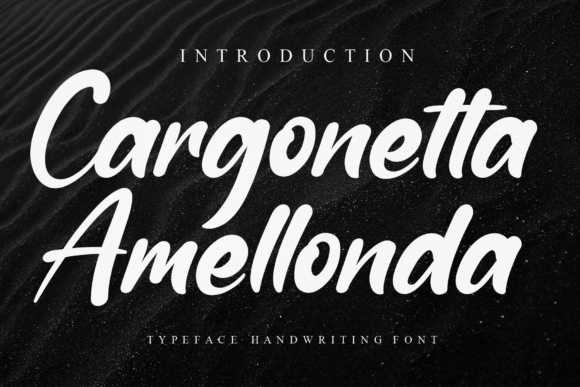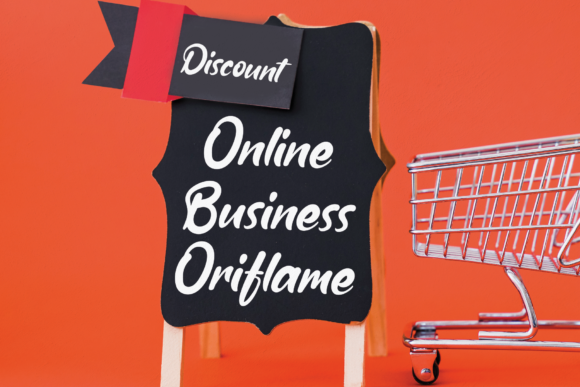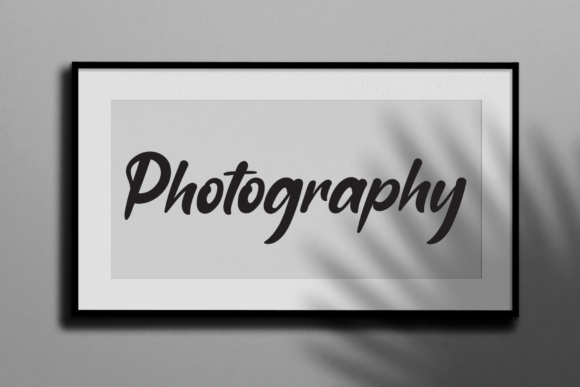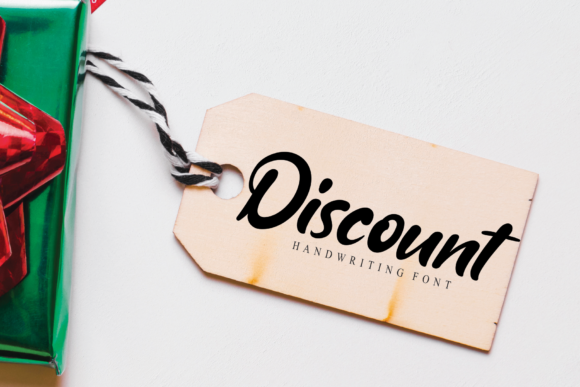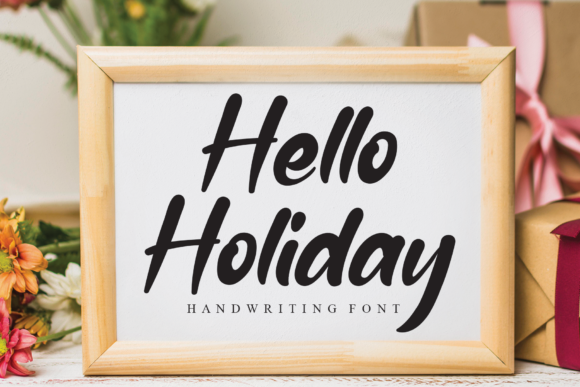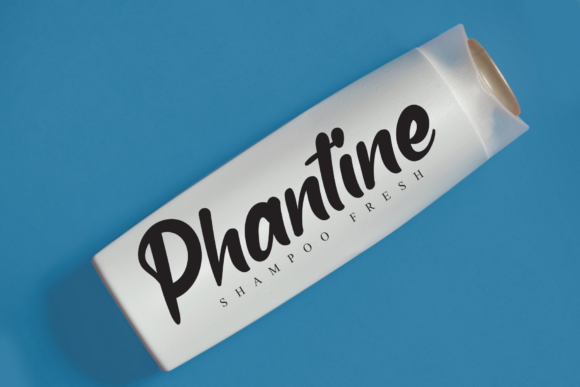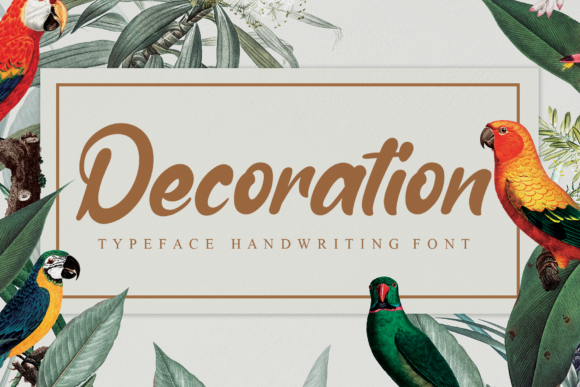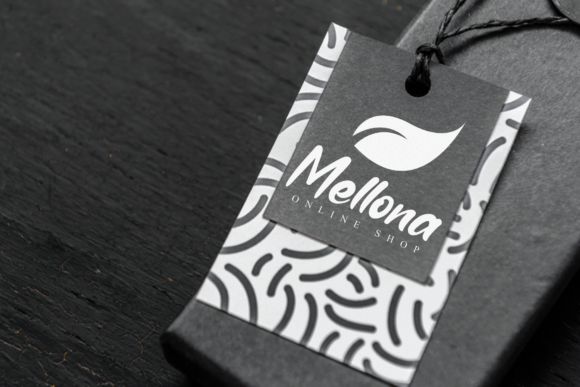
Cargonetta Amellonda Font
About Cargonetta Amellonda Font
Cargonetta Amellonda is a gorgeous and bold handwritten font, crafted to give your headlines and logotype projects a stylish touch. This font reads as strong, confident, and dynamic and can add tons of nostalgic character to your designs.